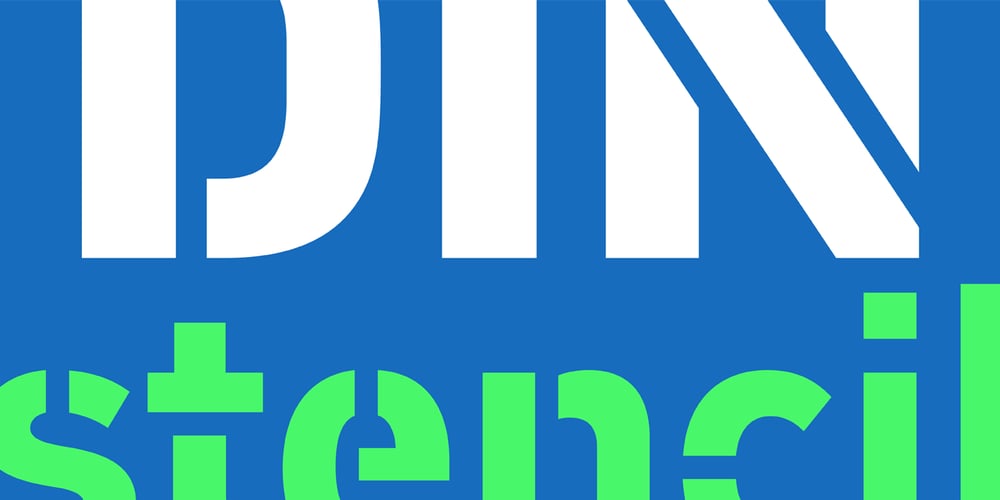
PF DIN Stencil B
PF DIN Stencil B font
PF DIN Stencil B Font Family was designed by Panos Vassiliou and published by Parachute. PF DIN Stencil B contains 7 styles and family package options. This is a new version of our popular DIN Stencil family designed with a wider cut than the original. This overcomes the diminishing effect of the stencil at smaller sizes where the cuts tend to disappear, whereas it makes a bold statement at display sizes. Traditionally, stencils have been used extensively for military equipment, goods packaging, transportation, shop signs, seed sacks and prison uniforms. In the old days, stencilled markings of ownership were printed on personal possessions, while stencilled signatures on shirts were typical of 19th century stencilling. DIN Stencil B manages to preserve several traditional stencil features, but introduces additional modernities which enhance its pleasing characteristics and make it an ideal choice for a large number of contemporary projects. It consists of 7 diverse weights from Extra Thin to Black. This version supports Latin, Cyrillic, Eastern European, Turkish and Baltic. DIN Stencil B includes several additions such the recently unicode encoded character of the German uppercase Eszett (ẞ), the Russian currency symbol for Rouble (₽), Ukrainian Hryvnia (₴), Azeri and Kazakh letterforms.